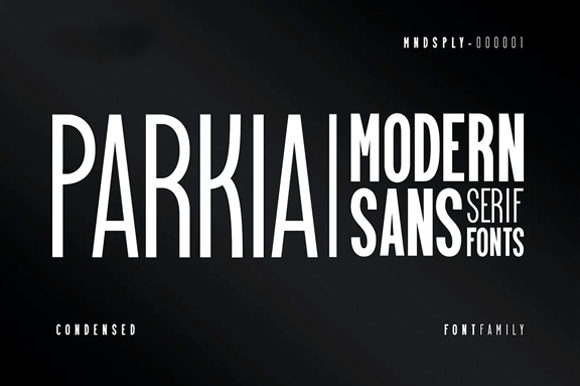
Dive into the realm of typography and let Parkia's allure captivate your designs. A meticulously crafted sans serif font, Parkia exudes a minimalist charm that blends seamlessly into a myriad of creative endeavors. Its clean lines and unassuming presence lend an air of sophistication, effortlessly elevating your projects to new heights of visual appeal.
Unleash your imagination and embark on a journey of boundless creativity with Parkia, the ultimate font style for magazines. This font family is tailor-made to bring life to your words, transforming ordinary text into captivating narratives. Its versatile nature empowers you to craft visually stunning headlines that demand attention, body copy that flows effortlessly, and quotes that resonate with impact.
Picture the allure of Parkia gracing the pages of your magazine, its elegant curves guiding readers through captivating stories and thought-provoking articles. Visualize the impact of headlines that leap off the page, inviting readers to delve deeper into the richness of your content. Experience the seamless flow of body copy that draws readers in, captivating their attention from beginning to end.
With Parkia as your font of choice, your magazine will exude an aura of professionalism and sophistication, attracting readers and leaving a lasting impression. Its timeless design transcends fleeting trends, ensuring that your publication remains relevant and engaging for years to come.
Embrace the power of Parkia and transform your magazine into a visual masterpiece. Let its understated elegance elevate your content, captivating readers and leaving them eagerly anticipating your next issue. Experience the allure of Parkia today and unlock a world of creative possibilities that will redefine your magazine's visual identity.